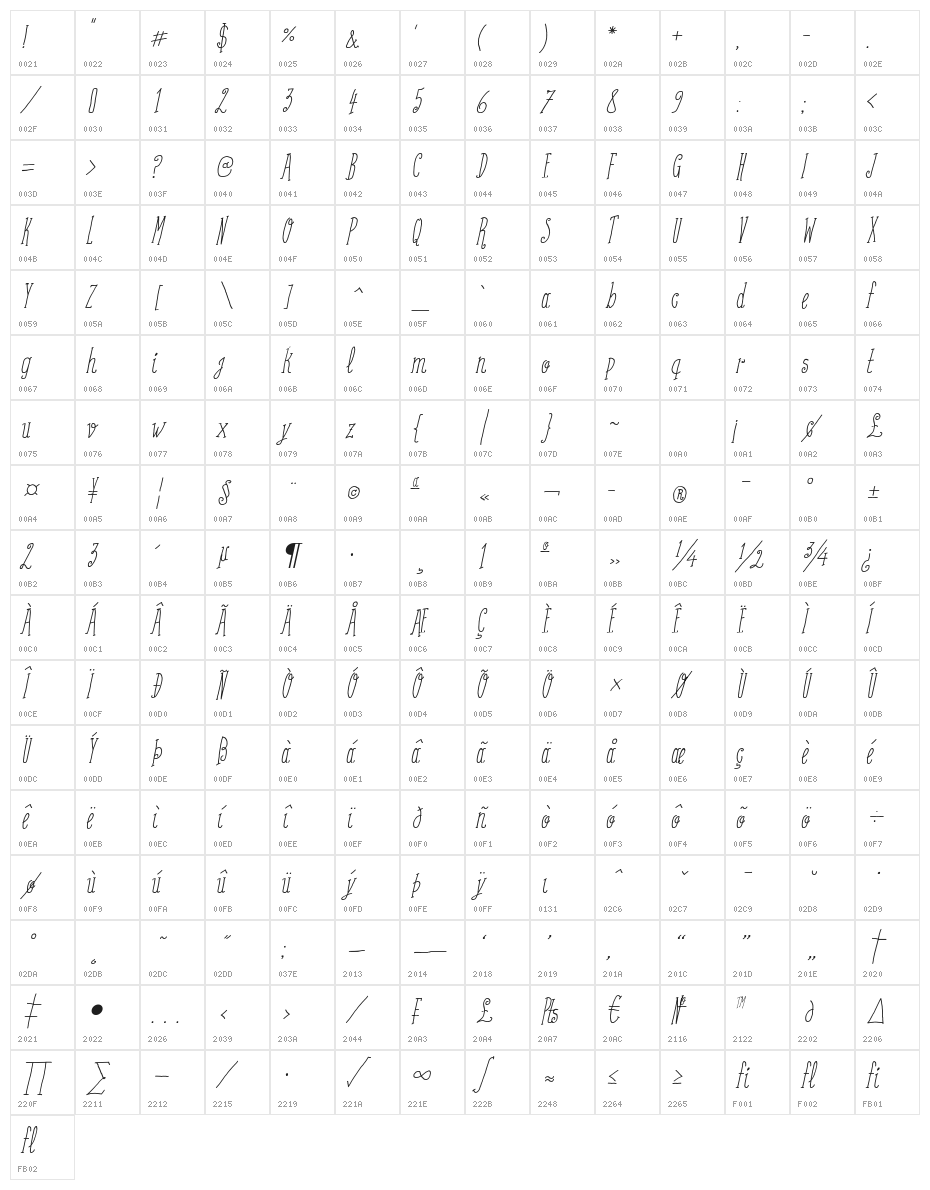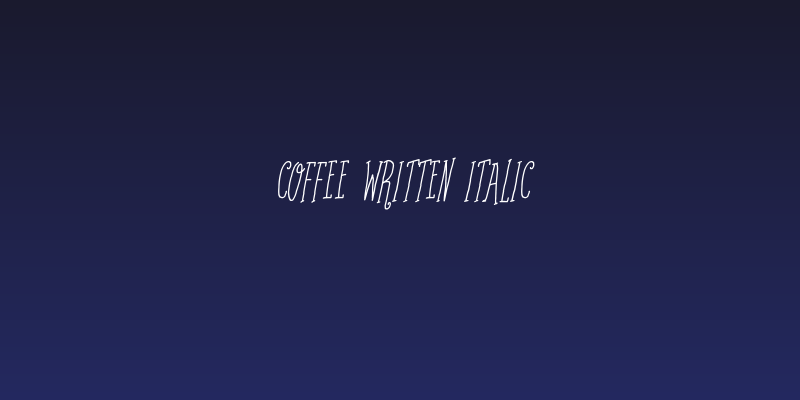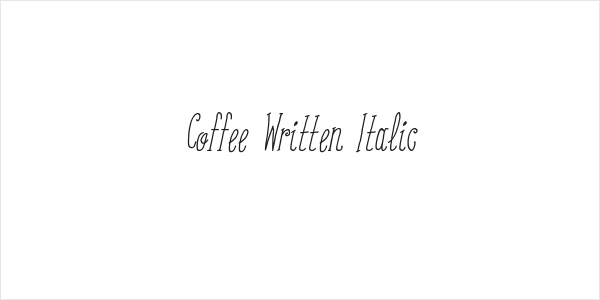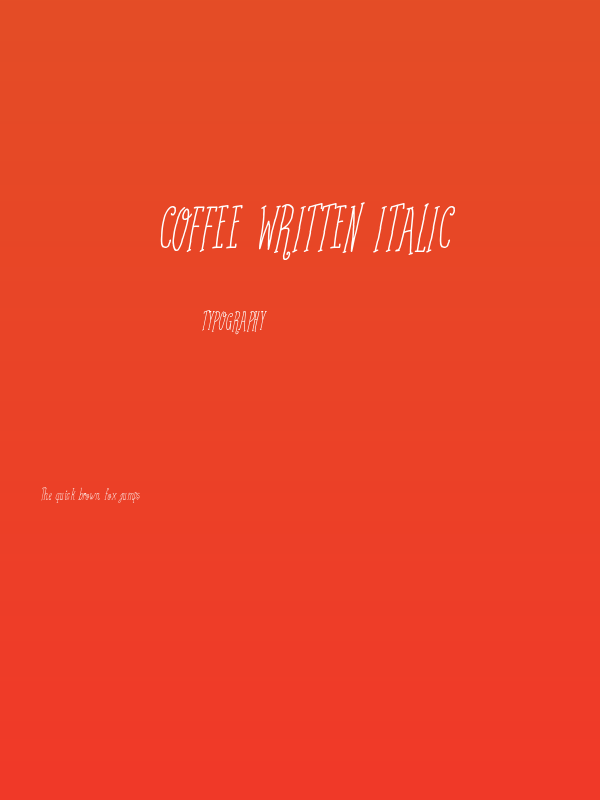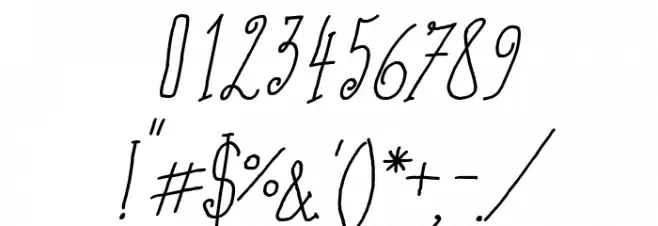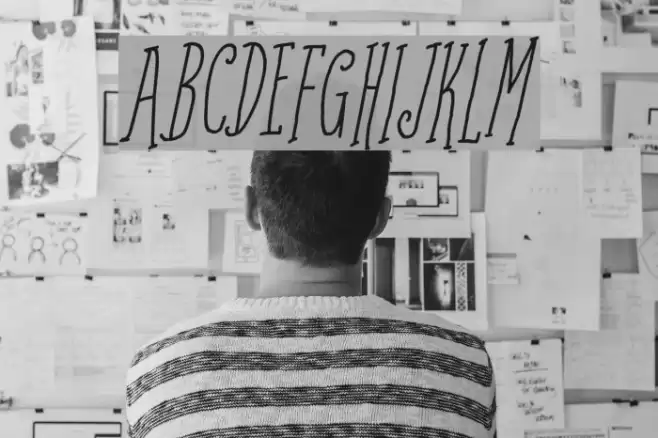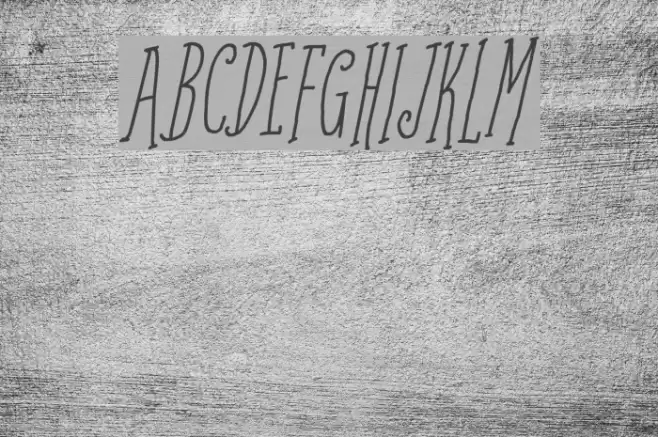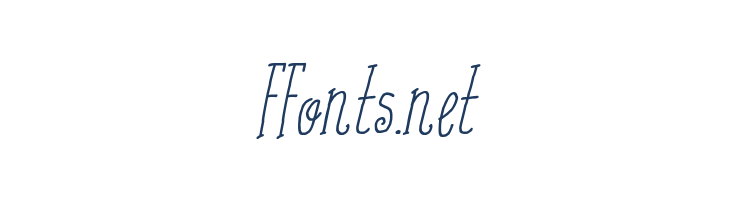
Coffee Written Italic Font
This font features a handwritten, italic style that exudes a casual and friendly vibe. The letters are elongated with a slight slant, giving them a dynamic and flowing appearance. The uppercase characters are tall and narrow, while the lowercase letters maintain a consistent height, enhancing readability. The numbers and special characters follow the same stylistic cues, ensuring uniformity across all glyphs. The strokes are smooth and slightly varied in thickness, adding a touch of elegance without compromising legibility.
| Use Case | Logos, Invitations, Menus |
| Proposed Projects | Ideal for personal invitations, greeting cards, cafe menus, or any project requiring a warm, personal touch. |